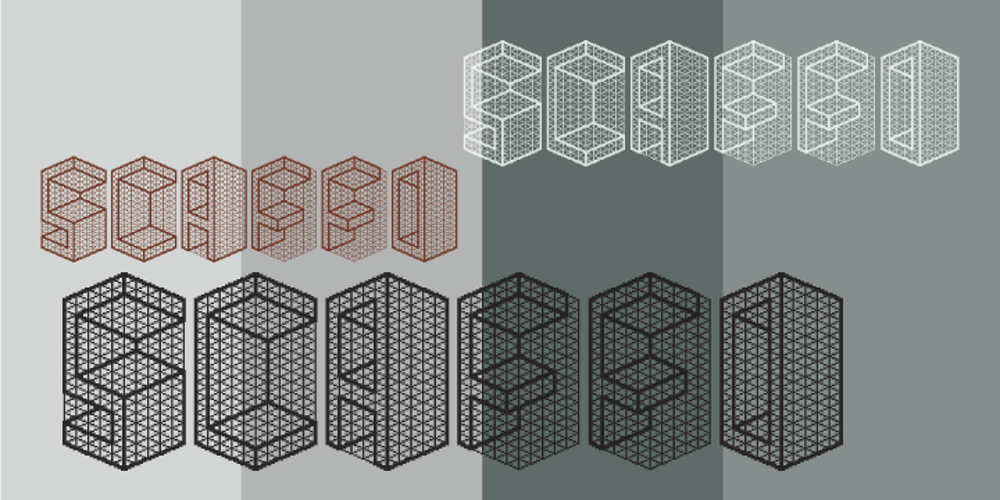
Scaffo Font Family was designed by Wilson Thomas and published by Funk King. Scaffo contains 4 styles and family package options. Scaffo is a progression of the Scaffoldini family. These fonts are done in perspective and provided in version with the grid effect and without. Be careful using these fonts – the scaffold effect uses many line segments. Creating outlines using this font is not recommended as it may crash your system.